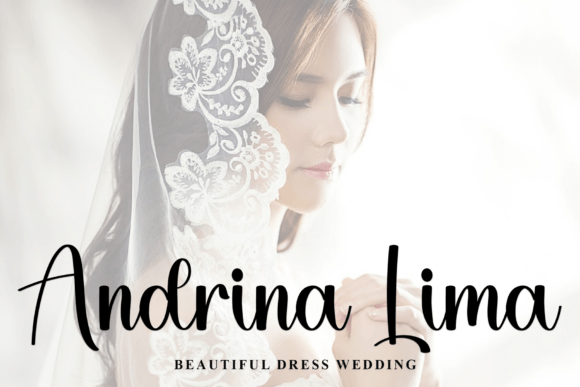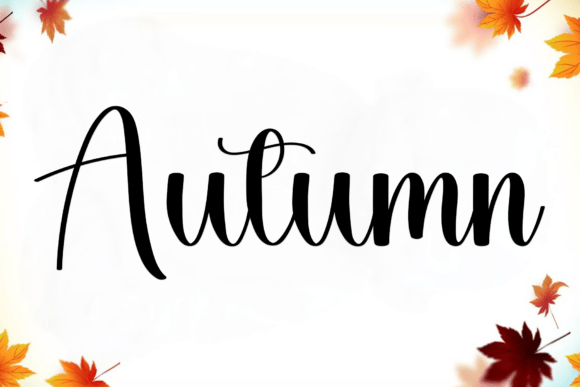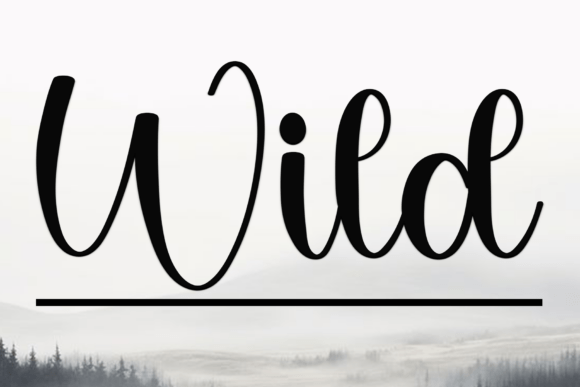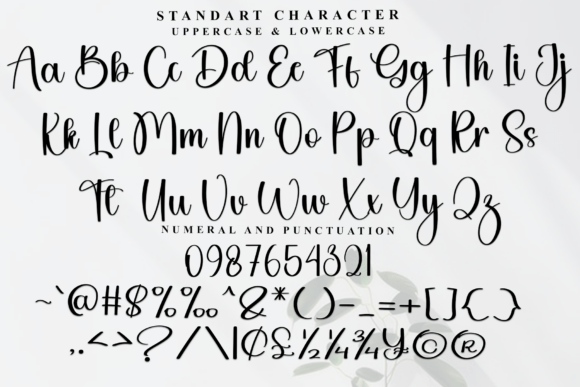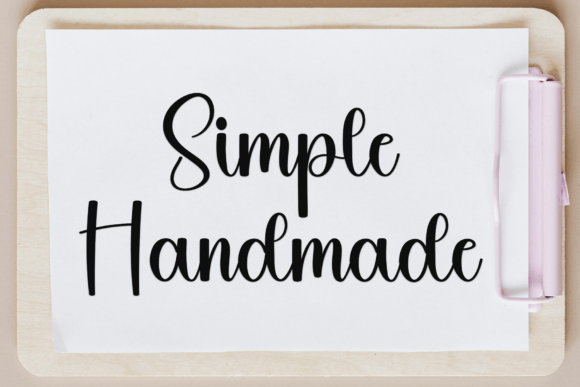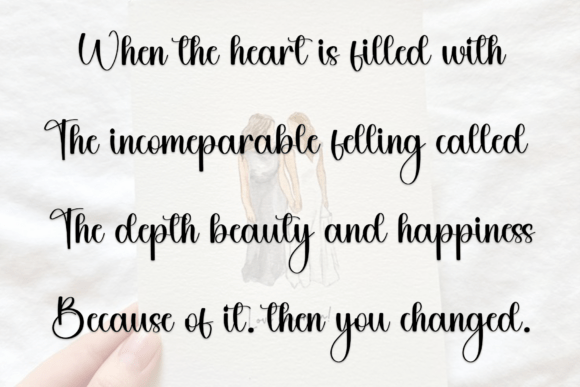
The Sweet Spot: Discovering the Charm of Blueberry Font
I’ll never forget the time I was working on a branding project for a local bakery. I had the logo concept nailed, but the font I was using just wasn’t cutting it. The client wanted something that felt friendly, approachable, and – most importantly – sweet. That’s when I stumbled upon Blueberry Font, a soft, modern script font that instantly captured the essence of the bakery’s brand. In this article, I’ll share my love for Blueberry Font, its features, and how to make the most of it in your designs.
Blueberry Font has quickly become one of my go-to fonts for a variety of design projects. Here’s what I love about it:
- ✨ Soft, rounded edges that give it a friendly feel
- ✅ Playful loops that add a touch of whimsy
- 💕 A fresh personality that’s perfect for cozy branding
- 🎉 Highly legible, even at smaller font sizes
While Blueberry Font is amazing, it’s not perfect. A few quirks to keep in mind:
- 🤔 Some letters, like ‘Q’ and ‘K’, can be a bit tricky to read in certain contexts
- ⚠️ Not ideal for very formal or corporate designs, as it’s quite playful
A Practical Guide: Using Blueberry Font in Your Designs
- Experiment with OpenType features, like swashes and ligatures, to add personality to your text
The Story Behind Blueberry Font
While the true story behind Blueberry Font remains a mystery, it’s easy to imagine that its designer was inspired by the sweet, juicy flavor of fresh blueberries. Perhaps they wanted to capture the essence of a summer morning, or the warmth of a homemade treat. Whatever the inspiration, Blueberry Font is sure to bring a smile to your face.
| Font Name | Blueberry Font |
| What type of designs is Blueberry Font best suited for? | Blueberry Font is perfect for product packaging, logos, social media graphics, and cozy branding projects. |
| Is Blueberry Font suitable for body text? | While Blueberry Font is highly legible, it’s best used for headlines, titles, and short paragraphs. For longer body text, a more traditional font might be a better choice. |
| Does Blueberry Font support OpenType features? | Yes, Blueberry Font supports OpenType features, including ligatures, swashes, and stylistic alternates. |